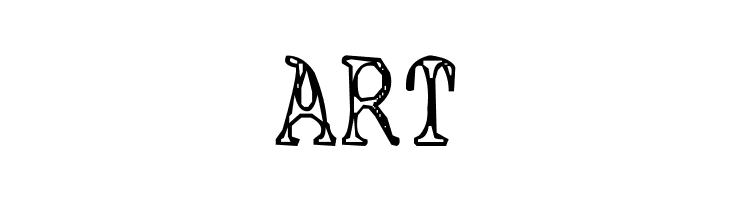
An ornate, decorative font inspired by vintage circus posters.
A playful and whimsical font with bold curves and lively swirls.
An artistic font with gothic influences and dramatic serifs.